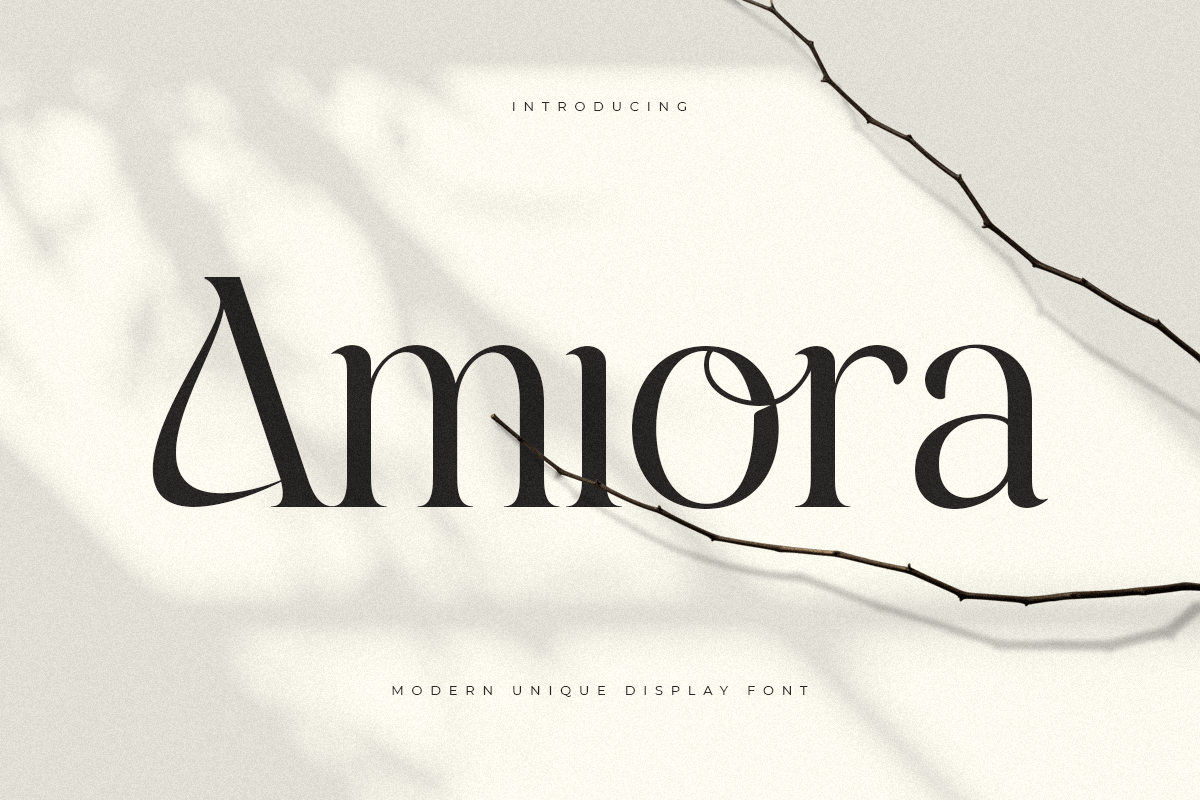
Amiora
-Modern Unique Display Font
A Display font that we created special for Modern branding needs, with extra ligatures in unique shape will be ready to add value of your brand. It so nice to leverage designer or product owner that need solutions to make their design look more elegant and luxury. And specially for Amiora font, We prepared any ligatures characters to help you create unlimited variations for your creative needs.